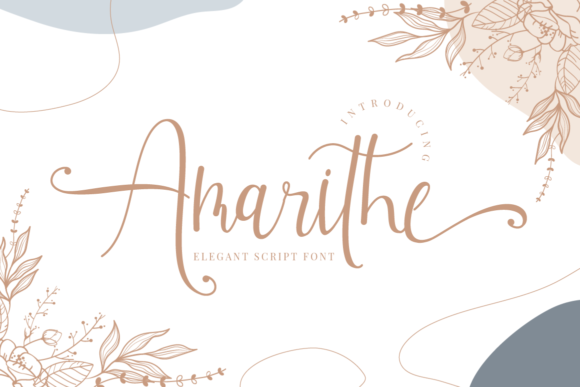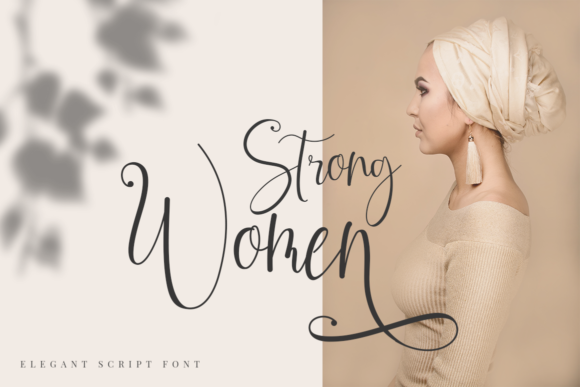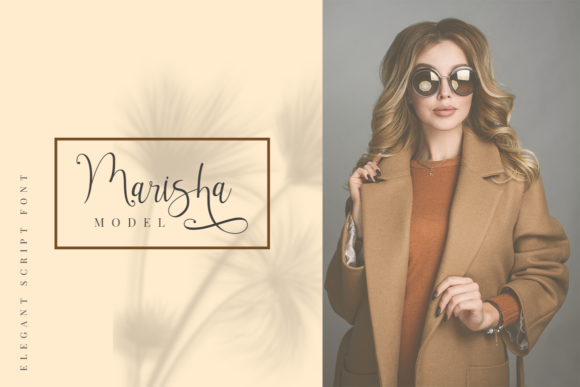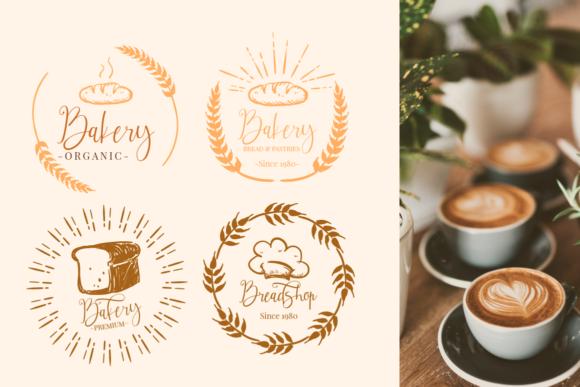
About Amarithe Font
Amirithe is a beautiful and modern script font. It is perfect for wedding events, anniversary cards, greeting cards, logotype, branding, and much more! This font is PUA encoded which means you can access all of the cute glyphs and swashes with ease! It also features a wealth of special features including alternate glyphs and ligatures.